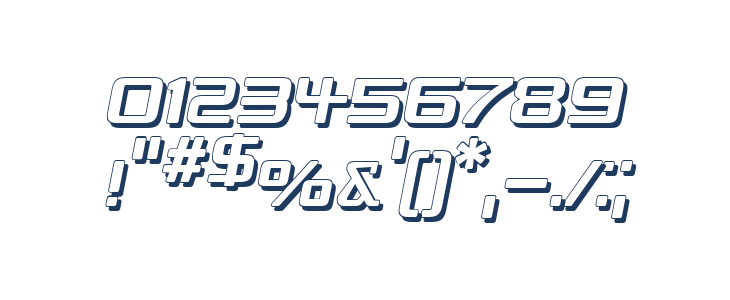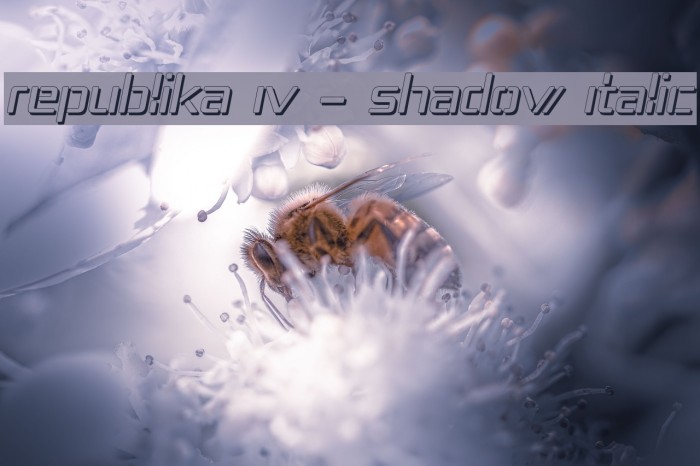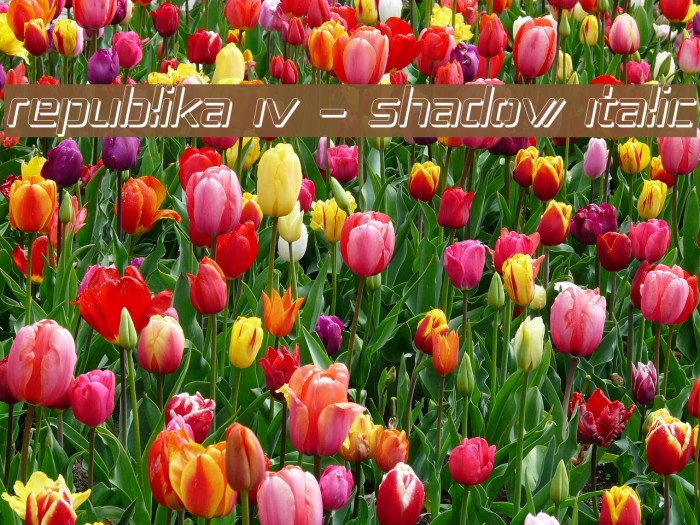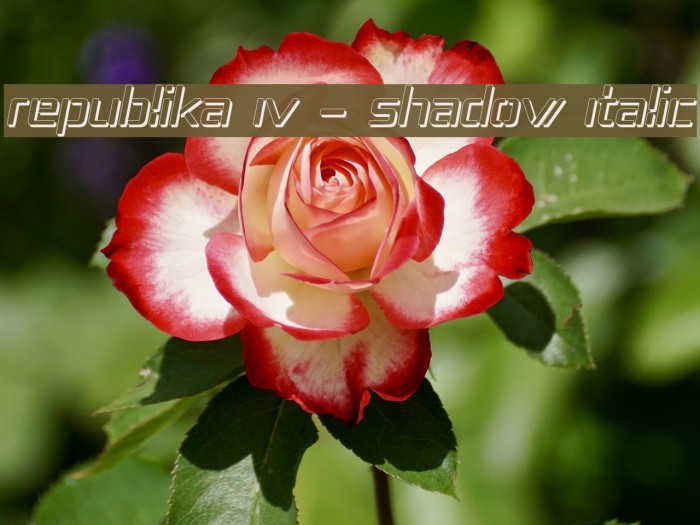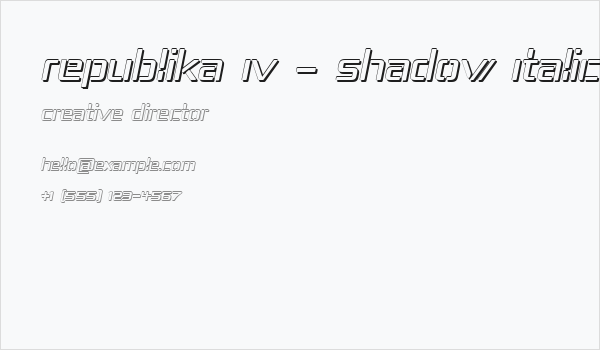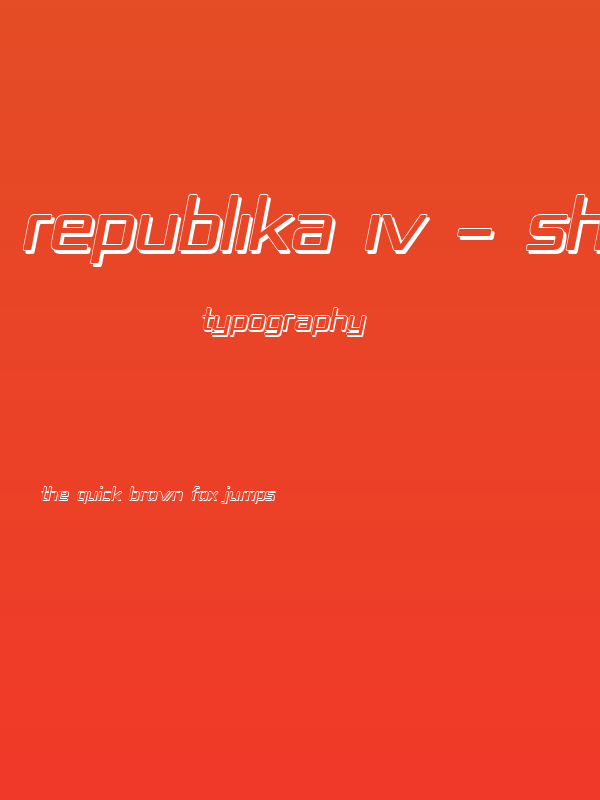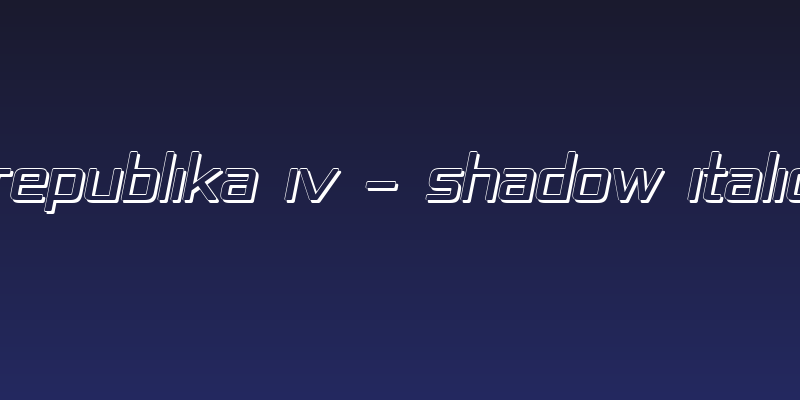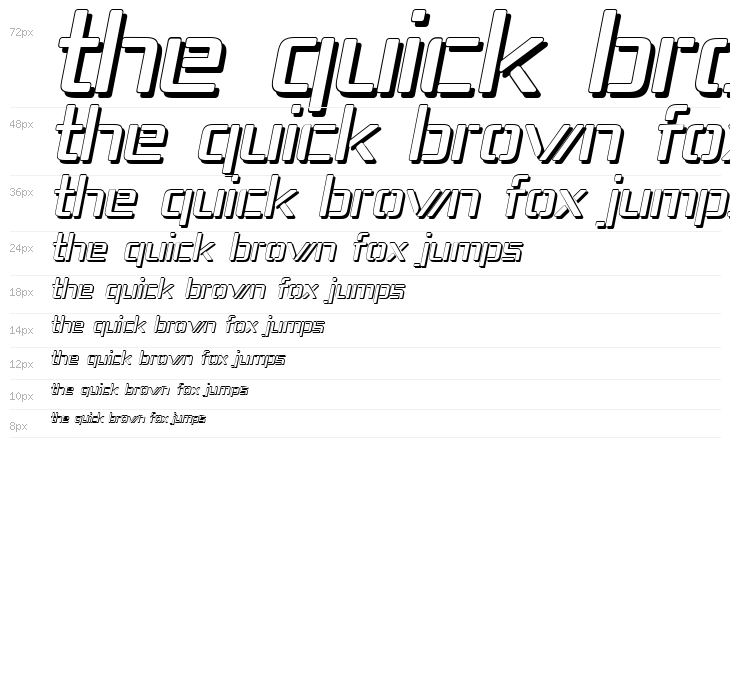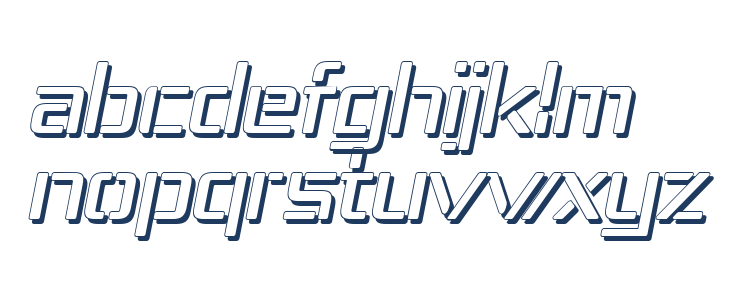
Republika IV - Shadow Italic Font
Republika IV - Shadow Italic Description
This font features a bold, italicized style with a distinct shadow effect that gives it a three-dimensional appearance. The characters are structured with clean, geometric lines, creating a modern and dynamic look. The uppercase and lowercase letters maintain a consistent style, with slightly rounded edges that soften the overall appearance. Numbers and special characters are designed to match the boldness and shadowed effect, ensuring uniformity across all elements. This font's unique shadowing adds depth, making it stand out in any design.
| Proposed Projects | Ideal for projects that require a modern and eye-catching design, such as posters, logos, and headlines. |